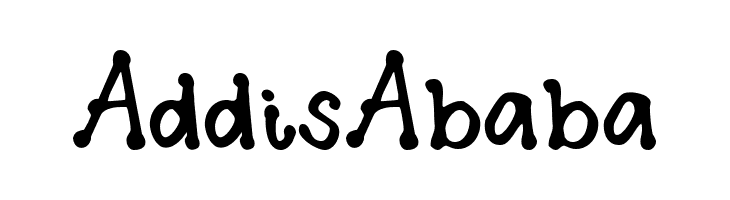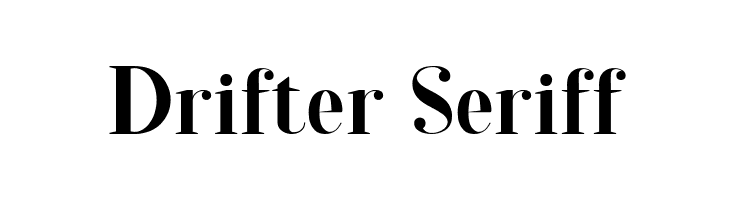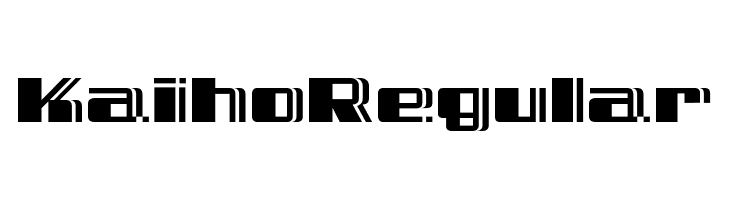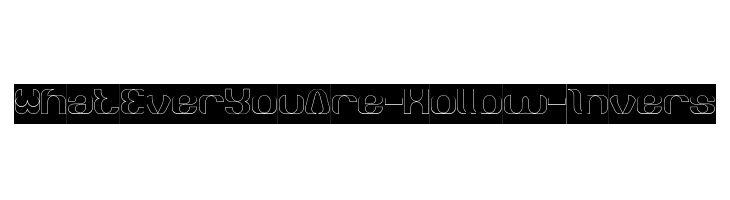
A bold, ornate 3D font with intricate detailing and shadow effects.
A geometric, art deco-inspired font with sharp angles and bold lines.
A decorative font with letters encased in book spines, offering a playful and thematic design.
A playful, dot-connected font with a whimsical and modern design.
Bold, modern font with a slightly condensed style and uniform stroke width.
A modern, geometric font with sleek curves and consistent stroke width.
A bold, handwritten font with a playful and dynamic style.
A dynamic, flowing script font with elegant, cursive letterforms and a distinct slant.
A dynamic, cursive font with fluid, connected strokes and a modern, artistic style.
A hollow, inverse-style font with elegant curves and consistent stroke width.